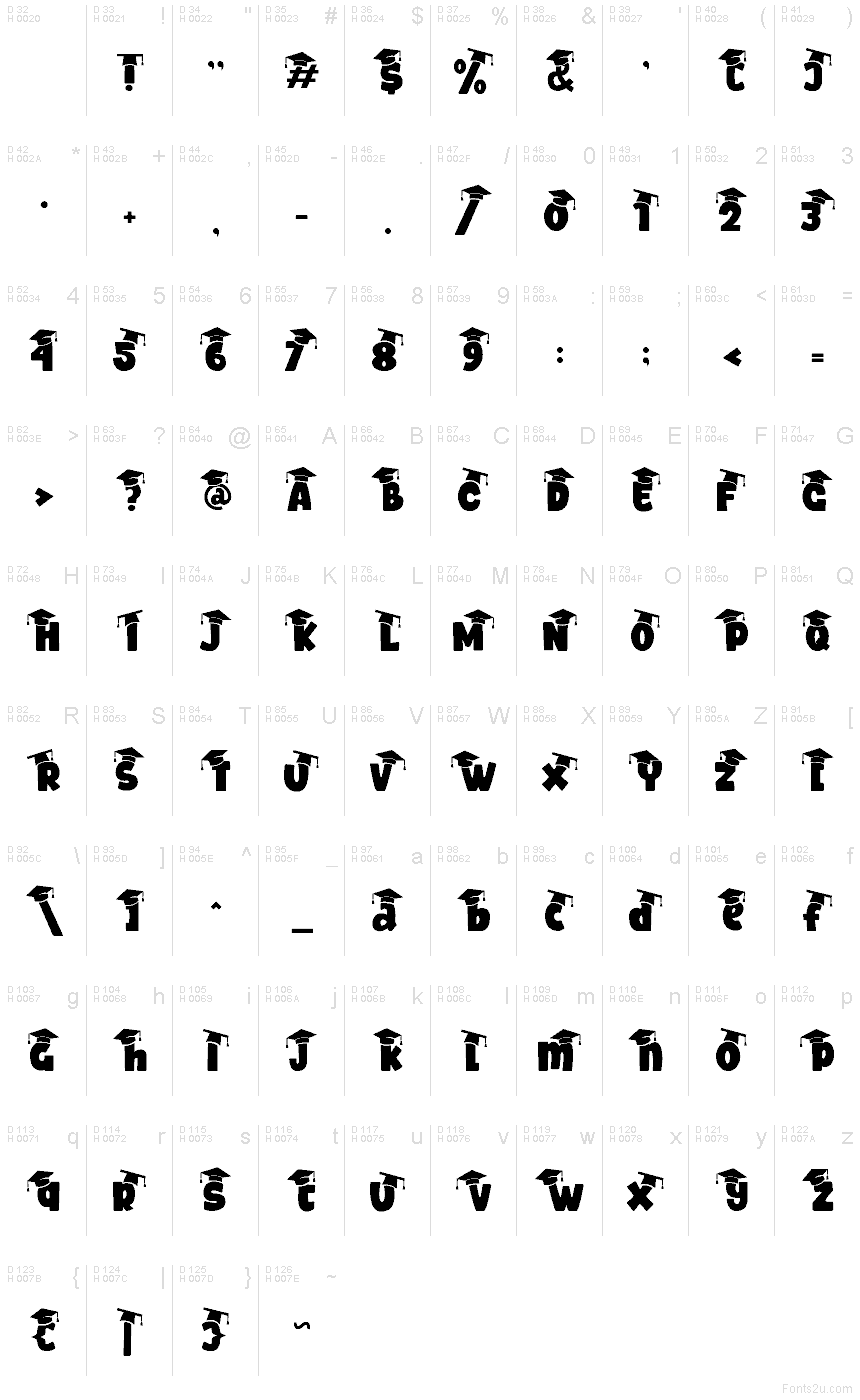
Study Symbol Graduate
Study Symbol Graduate font designed by PutraCetol Studio is a bold whimsical display type that mixes an educational theme and cap motifs. The decorative font has a quirky and casual tone that elevates it to the unique category of fonts that instantly draw the eye of your audience. Each character adopts an amusing personality for a light-hearted overall look.
Applications go beyond graduation visual projects to include school or university reports, assignments, websites, blogs magazines, books covers or inside texts. Miscellaneous posters are guaranteed to be elevated with this free display font no matter the topic!